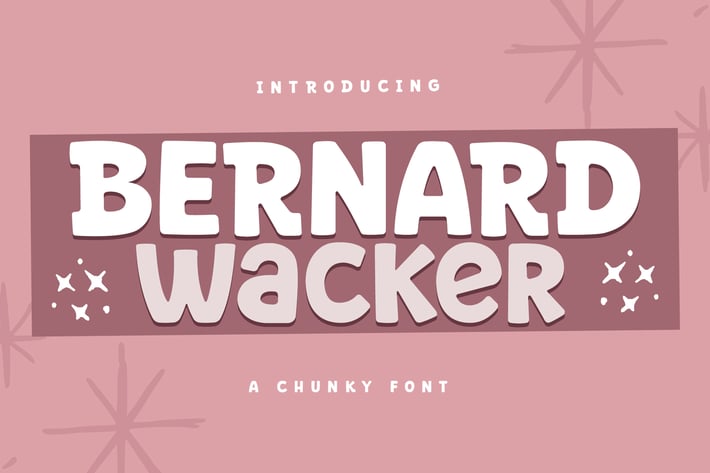
Bernard Wacker Chunky Font
Bernard Wacker is a playful chunky font crafted to bring bold personality and cheerful energy into every design. With its rounded edges, thick strokes, and friendly character shapes, this typeface instantly creates a warm, welcoming look. It’s perfect for fun branding, uplifting quotes, kids-themed visuals, and anything that needs a bright, expressive touch.
Chunky, bold, and friendly letter shapes
Playful rounded edges for a soft, approachable feel
Clean and easy readability in both big and small sizes
Regular & Italic styles included
Playful branding & logo design
Kids product packaging
Social media quotes
Posters & cheerful promotions
Cute merchandise designs
Greeting cards & invitations
Lifestyle and positive messaging visuals
Bold, bubbly, and irresistibly charming — Bernard Wacker brings instant happiness to every design.